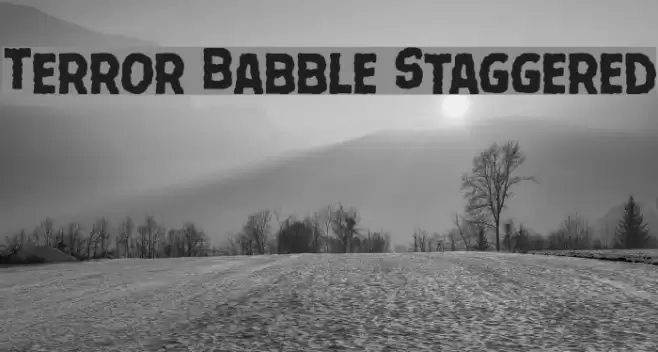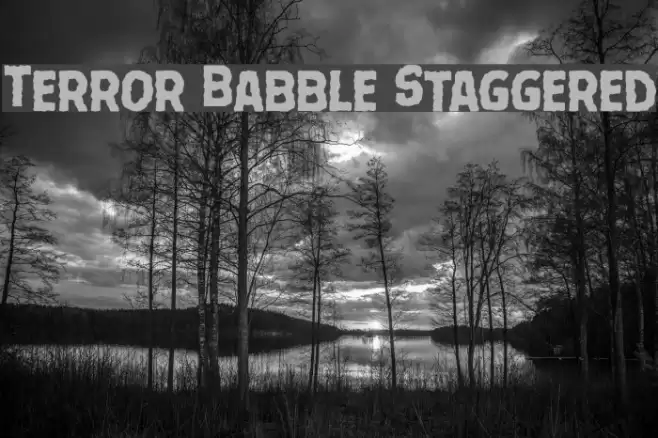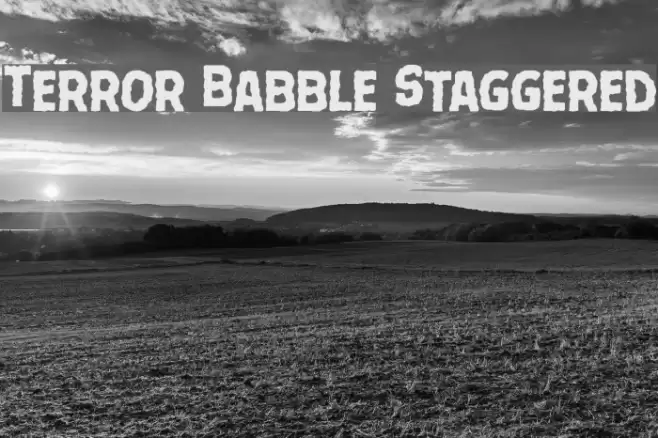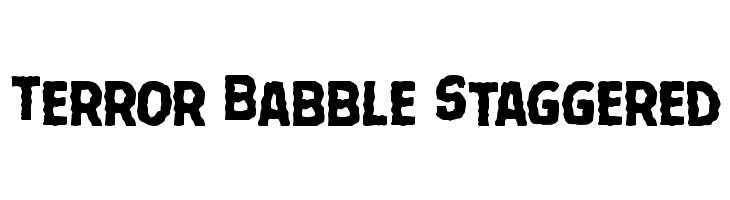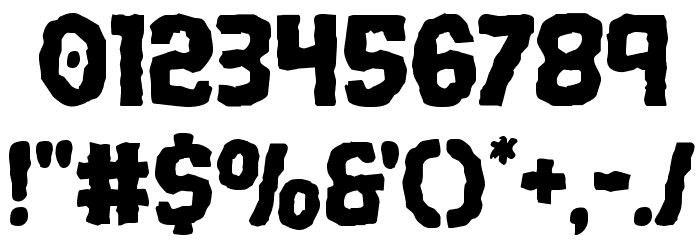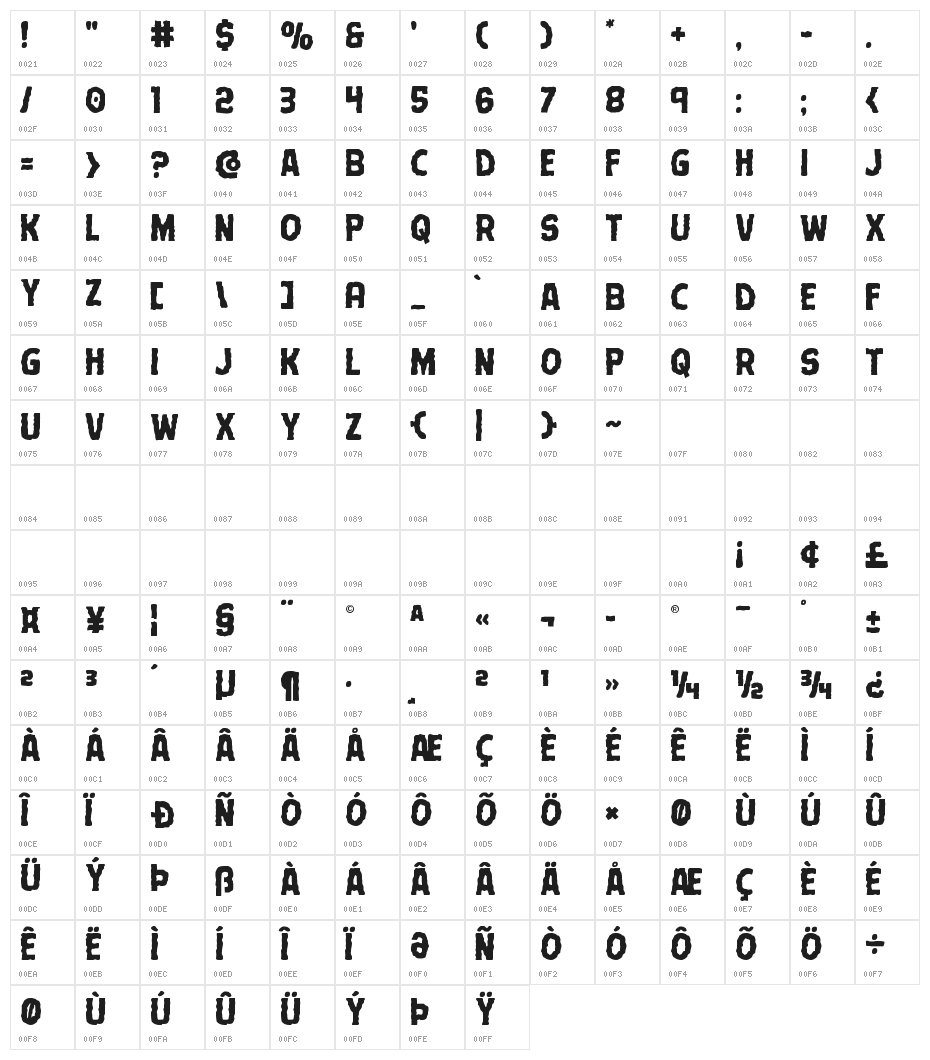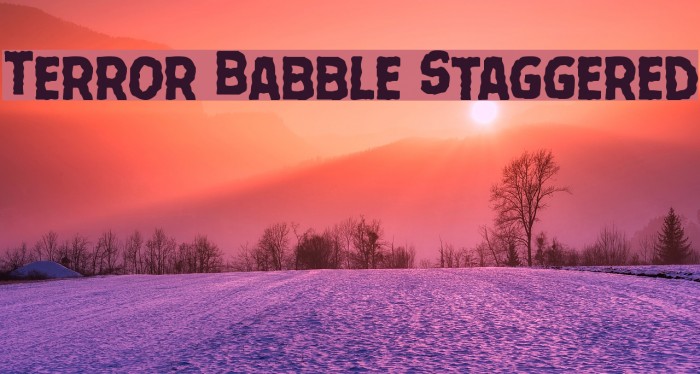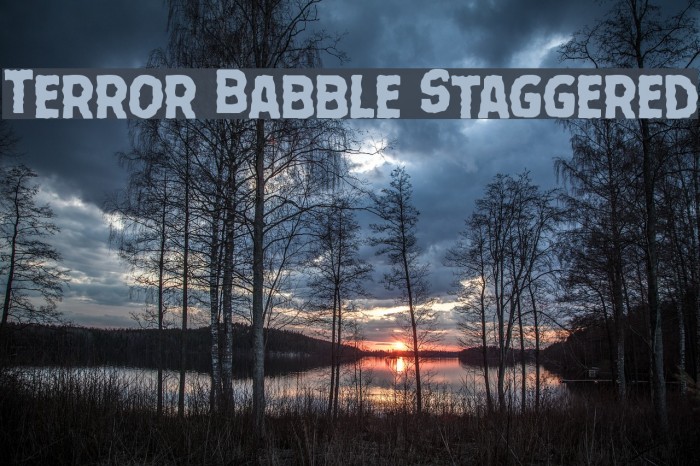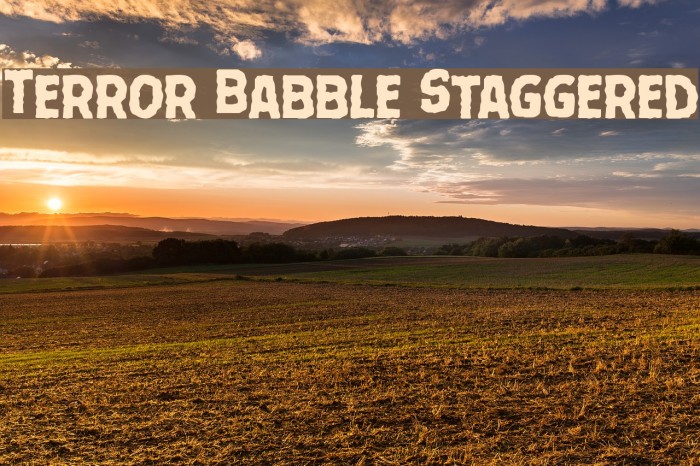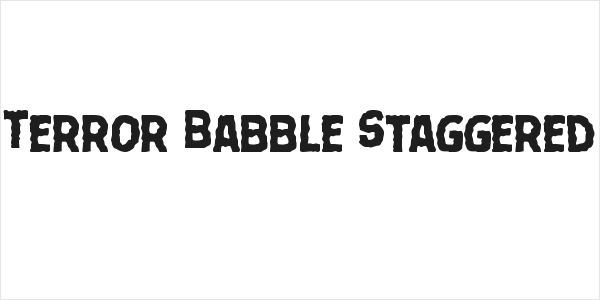
Terror Babble Staggered Font
Terror Babble Staggered Description
This font features a bold and rugged design, characterized by its uneven, jagged edges and a slightly distorted appearance. The letters are thick and substantial, giving them a strong presence on the page. The irregular shapes and rough texture suggest a hand-drawn or distressed style, making it ideal for creating a dramatic and impactful visual statement. The font maintains a consistent weight throughout, with each character exhibiting a unique, organic form that adds to its overall charm. The numbers and special characters follow the same design principles, ensuring a cohesive look across all text elements.
A bold, rugged font with jagged edges and a distressed, hand-drawn style from Uncategorized fonts.
- Proposed Projects: Ideal for horror-themed designs, posters, album covers, and any project requiring a bold, dramatic typeface.
- Use Case: Headlines, Posters, Logos